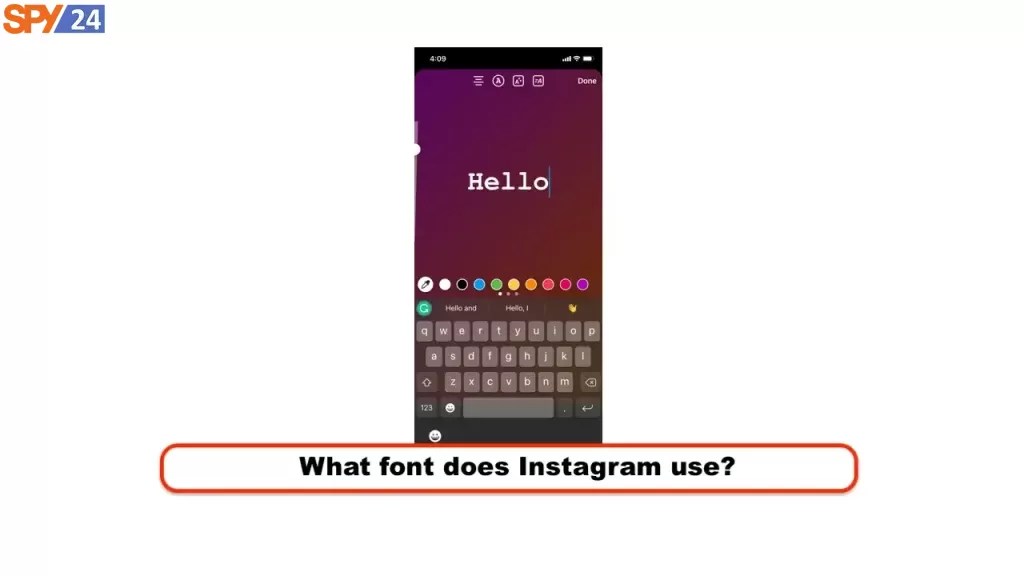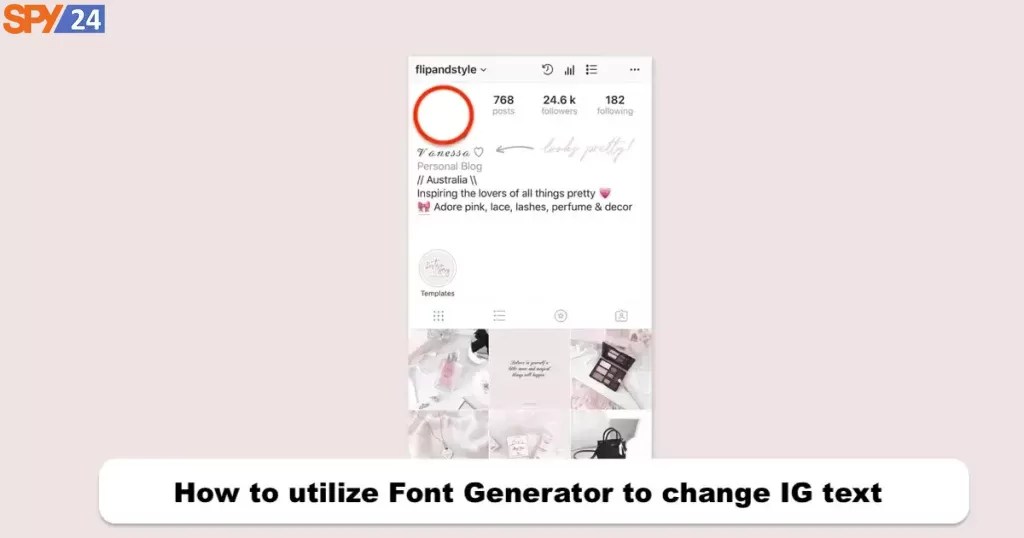
What Font Does Instagram Use Reddit . It appears in places like: For comparison, top is helvetica neue, bottom is roboto medium, middle is the screenshot from instagram. What is the font on instagram? Instagram uses instagram sans at its core, which is designed to feel as natural as human handwriting. Proxima nova‘s slim proportions give it a refined, contemporary look. Do you guys know the fonts used on instagram stories and reels? Instagram uses different fonts for various purposes. Instagram said it worked with. Instagram uses proxima nova as the core font across its interface. 134k subscribers in the identifythisfont community. The main text style used for the instagram logo, captions, and comments is proxima nova. It’s a version of garamond.
Instagram said it worked with. Instagram uses instagram sans at its core, which is designed to feel as natural as human handwriting. Do you guys know the fonts used on instagram stories and reels? Proxima nova‘s slim proportions give it a refined, contemporary look. The main text style used for the instagram logo, captions, and comments is proxima nova. 134k subscribers in the identifythisfont community. Instagram uses proxima nova as the core font across its interface. It appears in places like: For comparison, top is helvetica neue, bottom is roboto medium, middle is the screenshot from instagram. What is the font on instagram?
What Font Does Instagram Use Reddit Proxima nova‘s slim proportions give it a refined, contemporary look. It’s a version of garamond. It appears in places like: Instagram uses proxima nova as the core font across its interface. The main text style used for the instagram logo, captions, and comments is proxima nova. Instagram said it worked with. Proxima nova‘s slim proportions give it a refined, contemporary look. For comparison, top is helvetica neue, bottom is roboto medium, middle is the screenshot from instagram. 134k subscribers in the identifythisfont community. Instagram uses instagram sans at its core, which is designed to feel as natural as human handwriting. What is the font on instagram? Instagram uses different fonts for various purposes. Do you guys know the fonts used on instagram stories and reels?
What Font Does Instagram Use? TechCult What Font Does Instagram Use Reddit Do you guys know the fonts used on instagram stories and reels? Instagram uses different fonts for various purposes. The main text style used for the instagram logo, captions, and comments is proxima nova. Proxima nova‘s slim proportions give it a refined, contemporary look. It’s a version of garamond. What is the font on instagram? 134k subscribers in the identifythisfont. What Font Does Instagram Use Reddit.
Best What Font Does Instagram Use For Captions With New Ideas What Font Does Instagram Use Reddit 134k subscribers in the identifythisfont community. Instagram said it worked with. The main text style used for the instagram logo, captions, and comments is proxima nova. It’s a version of garamond. For comparison, top is helvetica neue, bottom is roboto medium, middle is the screenshot from instagram. What is the font on instagram? Instagram uses instagram sans at its core,. What Font Does Instagram Use Reddit.
+11 Aesthetic Instagram Name Font davidbabtistechirot What Font Does Instagram Use Reddit Instagram uses different fonts for various purposes. Instagram said it worked with. What is the font on instagram? Instagram uses instagram sans at its core, which is designed to feel as natural as human handwriting. It appears in places like: Instagram uses proxima nova as the core font across its interface. For comparison, top is helvetica neue, bottom is roboto. What Font Does Instagram Use Reddit.
How to Change Fonts on Instagram Everything You Need to Know What Font Does Instagram Use Reddit Instagram uses different fonts for various purposes. Proxima nova‘s slim proportions give it a refined, contemporary look. Instagram uses proxima nova as the core font across its interface. The main text style used for the instagram logo, captions, and comments is proxima nova. For comparison, top is helvetica neue, bottom is roboto medium, middle is the screenshot from instagram. What. What Font Does Instagram Use Reddit.
Different Fonts For Instagram username 𝟙😍⚡ Copy ⓐⓝⓓ Paste 💕 What Font Does Instagram Use Reddit Instagram said it worked with. The main text style used for the instagram logo, captions, and comments is proxima nova. It appears in places like: What is the font on instagram? It’s a version of garamond. Do you guys know the fonts used on instagram stories and reels? Instagram uses instagram sans at its core, which is designed to feel. What Font Does Instagram Use Reddit.
What Font Does Instagram Use? for Stories Bio Messages What Font Does Instagram Use Reddit Instagram uses proxima nova as the core font across its interface. For comparison, top is helvetica neue, bottom is roboto medium, middle is the screenshot from instagram. Proxima nova‘s slim proportions give it a refined, contemporary look. Instagram said it worked with. The main text style used for the instagram logo, captions, and comments is proxima nova. Instagram uses different. What Font Does Instagram Use Reddit.
Instagram ganha notas na DM, cópia do BeReal e mais MacMagazine What Font Does Instagram Use Reddit For comparison, top is helvetica neue, bottom is roboto medium, middle is the screenshot from instagram. 134k subscribers in the identifythisfont community. Instagram uses instagram sans at its core, which is designed to feel as natural as human handwriting. The main text style used for the instagram logo, captions, and comments is proxima nova. Instagram uses different fonts for various. What Font Does Instagram Use Reddit.
What Font Does Instagram Use? Instagram Top Font Picks for 2023 What Font Does Instagram Use Reddit It appears in places like: What is the font on instagram? Instagram uses proxima nova as the core font across its interface. The main text style used for the instagram logo, captions, and comments is proxima nova. Instagram uses instagram sans at its core, which is designed to feel as natural as human handwriting. Instagram uses different fonts for various. What Font Does Instagram Use Reddit.